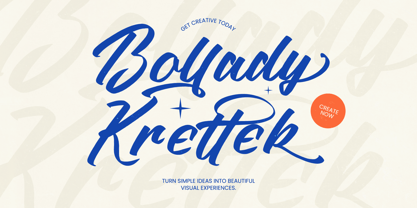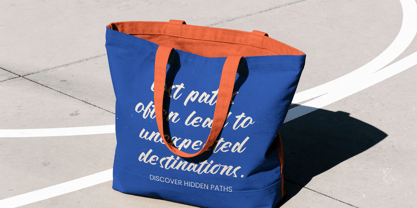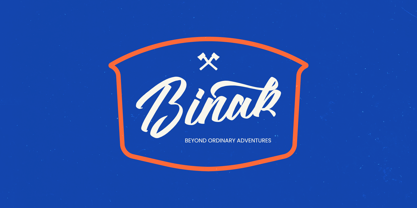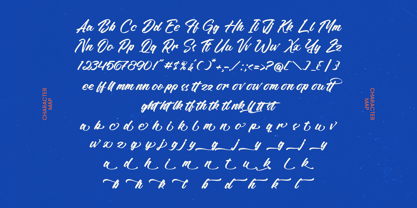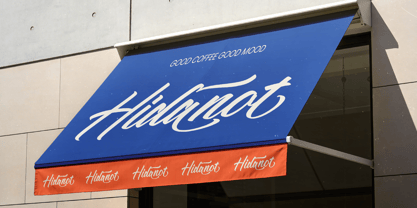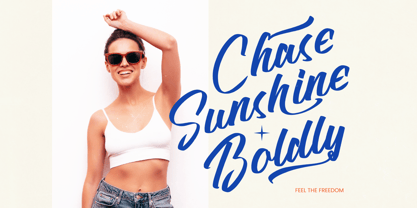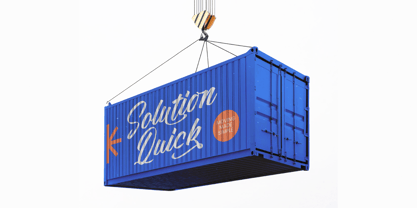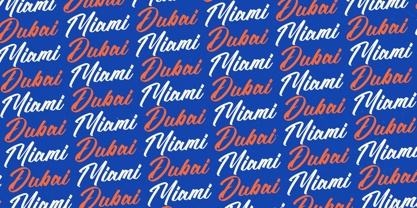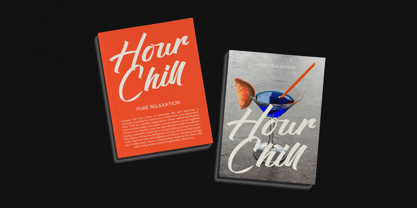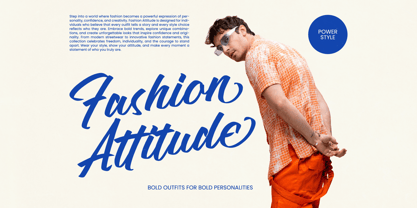
Bollady Krettek
Die Schriftfamilie Bollady Krettek wurde von Heru Utama Putra entworfen und von Stylishtype Studio veröffentlicht. Bollady Krettek enthält 2 Stile und Familienpaketoptionen. Mehr über diese Familie
Elevate your design projects with the striking personality of Bollady Krettek - Modern Bold Script. This font is a dynamic brush script that balances organic fluid strokes with a bold, contemporary edge. Crafted for impact, Bollady Krettek - Modern Bold Script offers a hand-lettered feel that brings authentic energy to any creative layout. Its robust weight and expressive curves make it an essential tool for designers seeking to capture attention immediately.